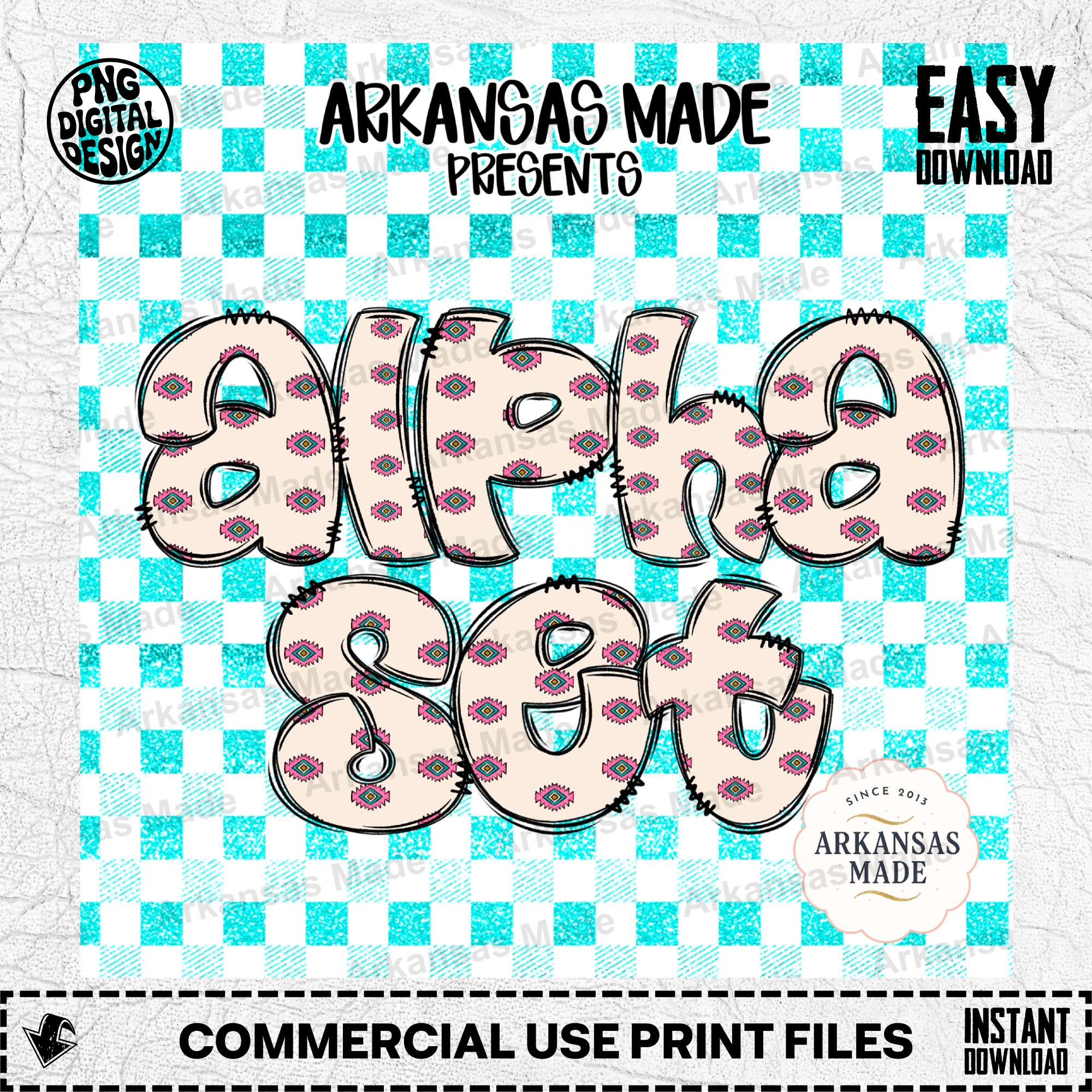
Southwestern Alpha Set PNG, Aztec Font Letters, Boho Alphabet Design, Western Sublimation PNG, Distressed Outlined Digital Download for
Unlock your creativity with this vibrant Southwestern Alpha Set PNG, featuring unique Aztec font letters perfect for all your digital crafting projects. Embrace the trendy Boho Western aesthetic with these distressed outline alphabet graphics. Ideal for crafters, designers, and small business owners creating custom apparel, tumblers, signs, or unique personalized gifts. Perfect for adding a distinctive touch to birthday presents, themed party decor, or any DIY creation.